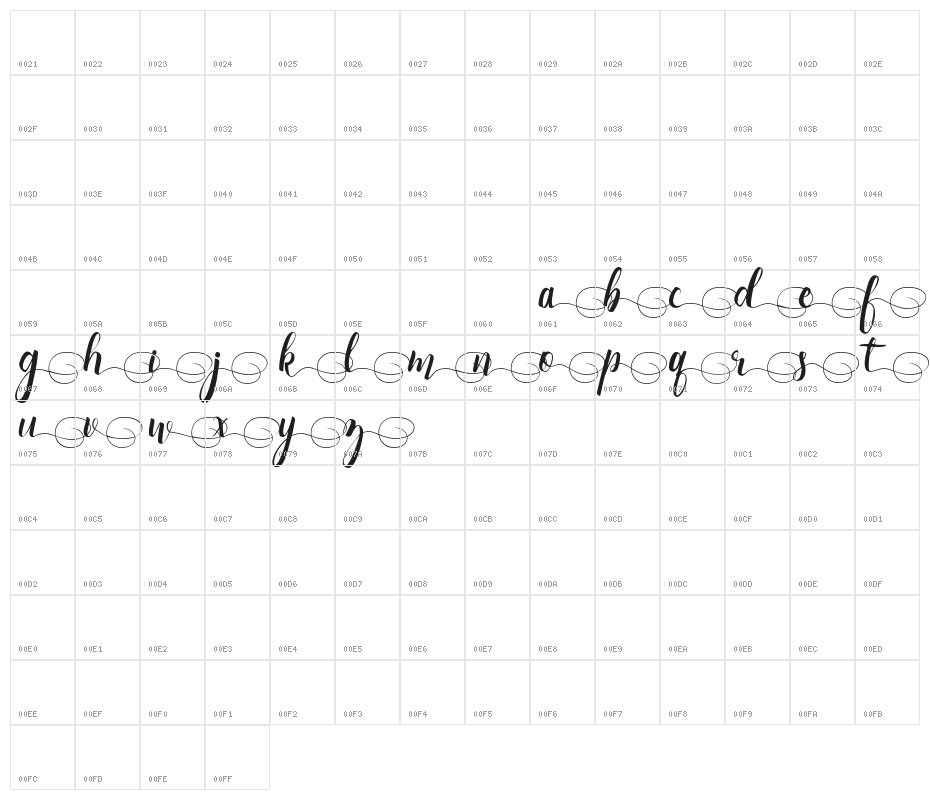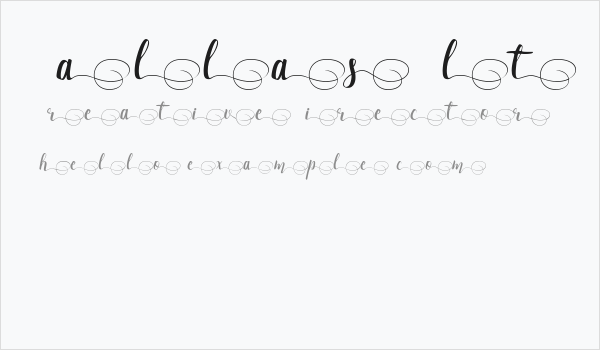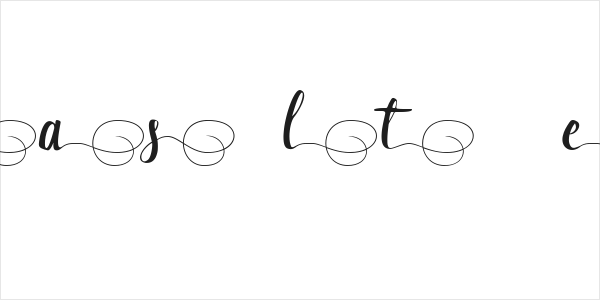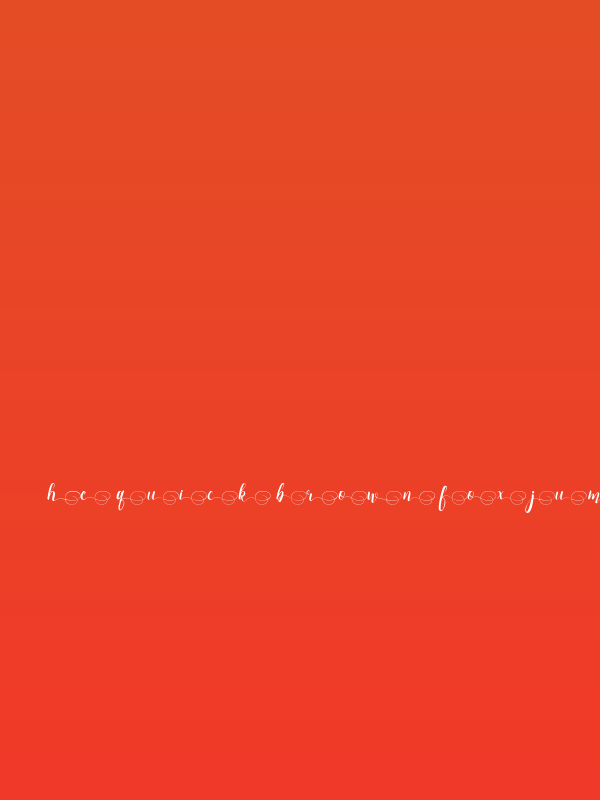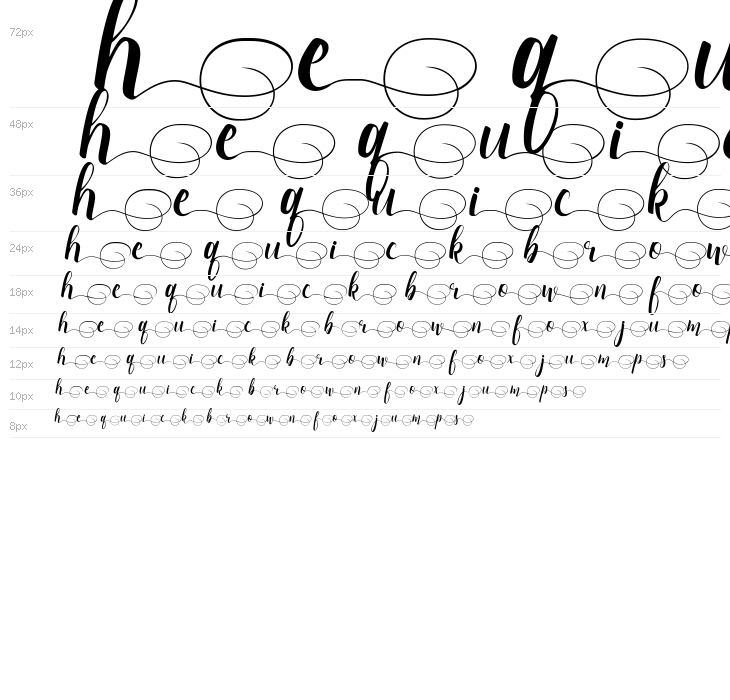
Sallas Alt 2 Demo Font
Sallas Alt 2 Demo Description
This font features an elegant and decorative script style, characterized by flowing, interconnected letters with elaborate swashes and loops. The lowercase letters are particularly ornate, with each character seamlessly connecting to the next, creating a continuous, fluid line. The design is reminiscent of traditional calligraphy, offering a sense of sophistication and grace. The strokes are moderately thick, providing a balanced contrast that enhances readability while maintaining its decorative appeal. This font is ideal for projects that require a touch of elegance and artistic flair.